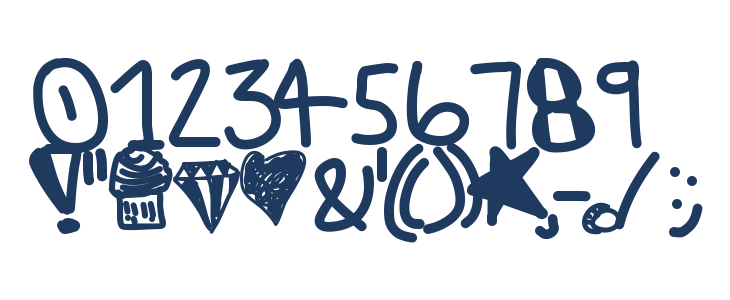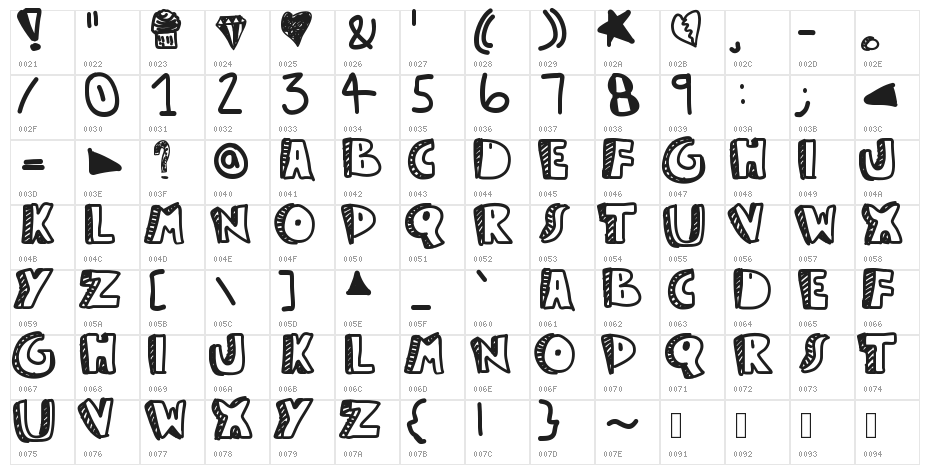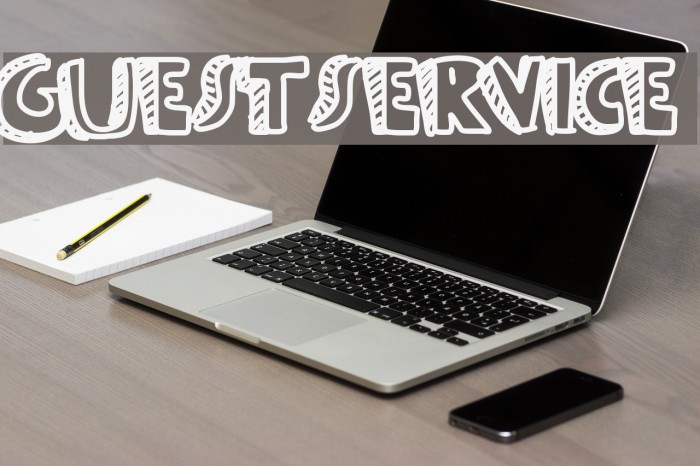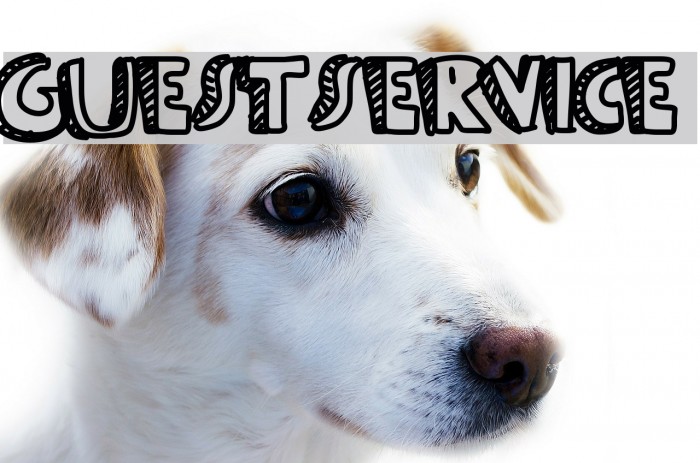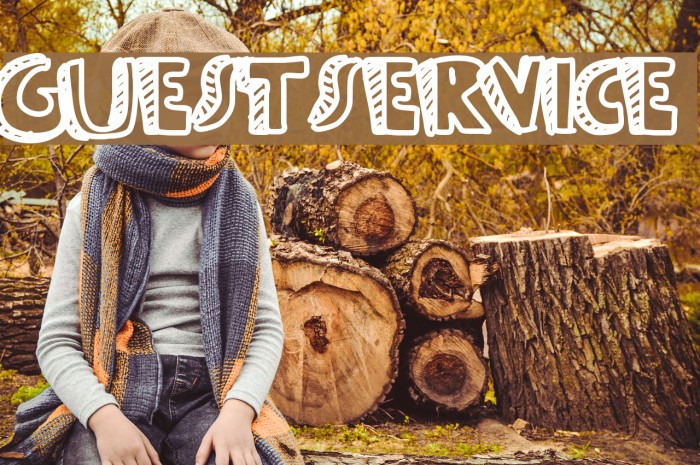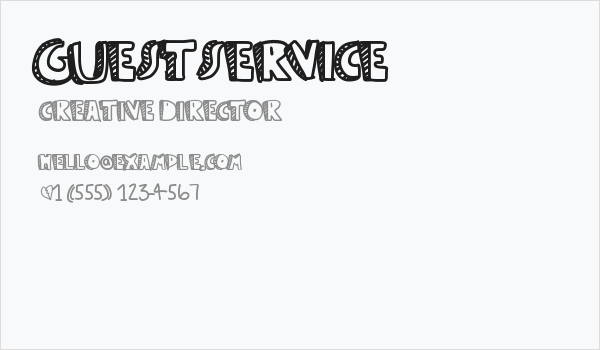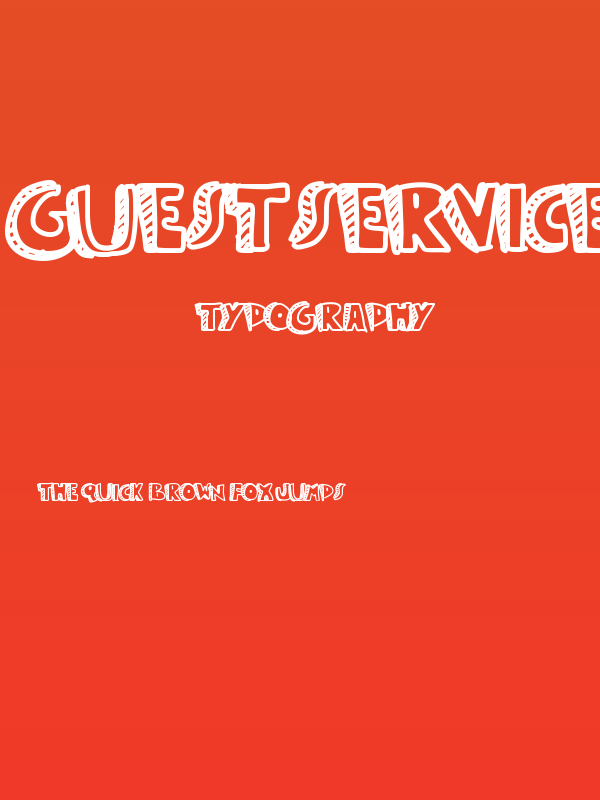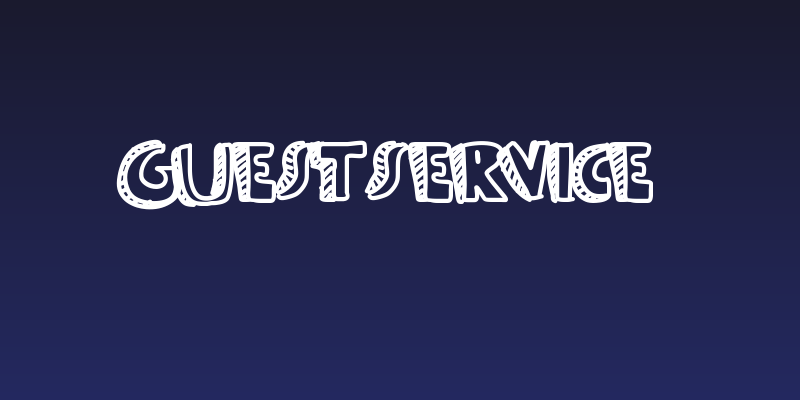
Guestservice Font
Guestservice Description
This playful and whimsical font features bold, hand-drawn characters with a unique doodle-like appearance. Each letter is filled with patterns such as stripes and dots, adding a fun and dynamic element to the design. The font includes both uppercase and lowercase letters, numbers, and a variety of special characters, making it versatile for creative projects. Its bold and decorative style makes it stand out, perfect for capturing attention in playful and informal settings.
| Overall Style | Playful, Whimsical, Decorative |
| Use Case | Headlines, Posters, Creative Branding |
| Proposed Projects | Ideal for children's book covers, playful posters, greeting cards, and creative branding projects. |